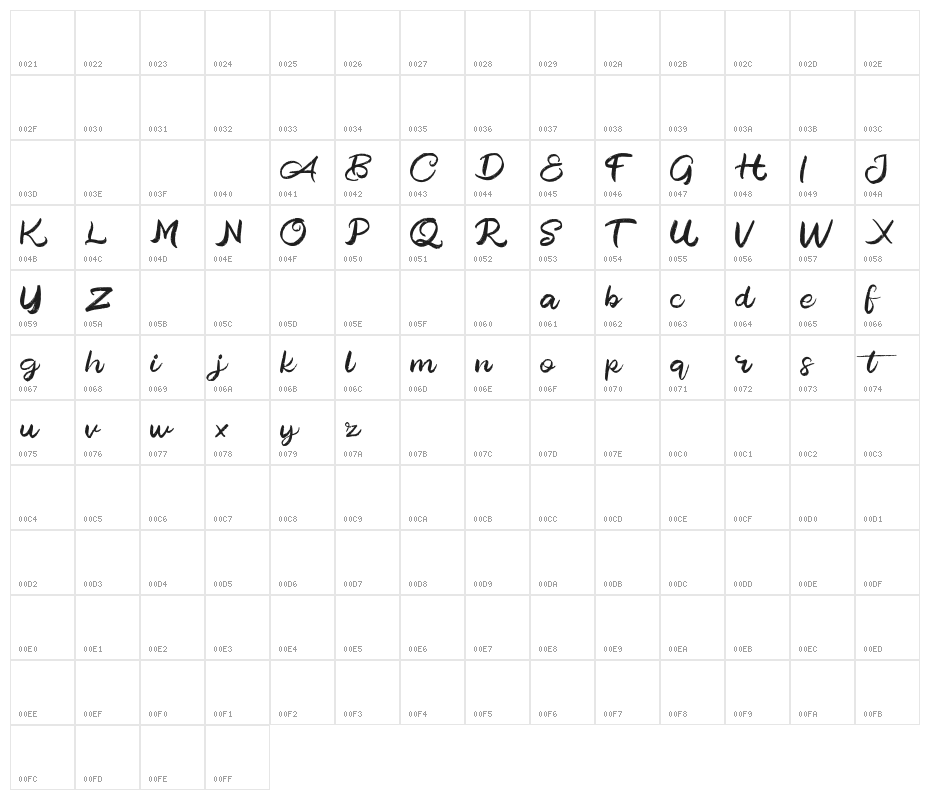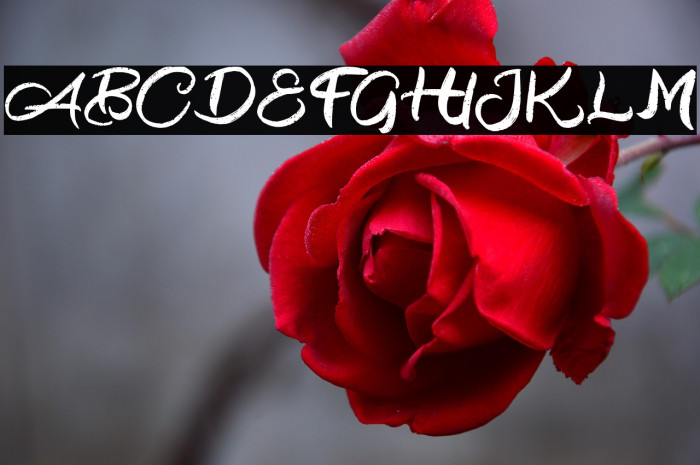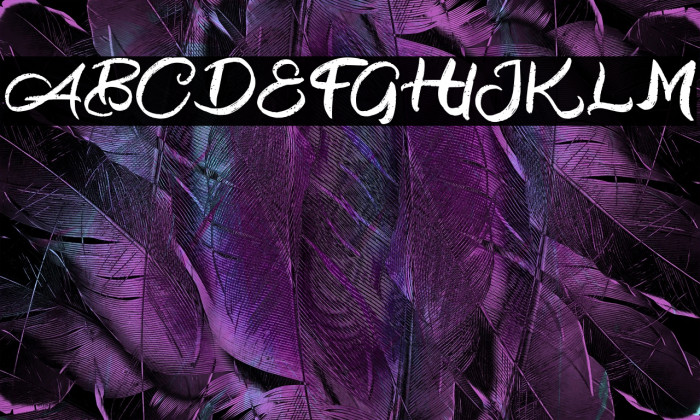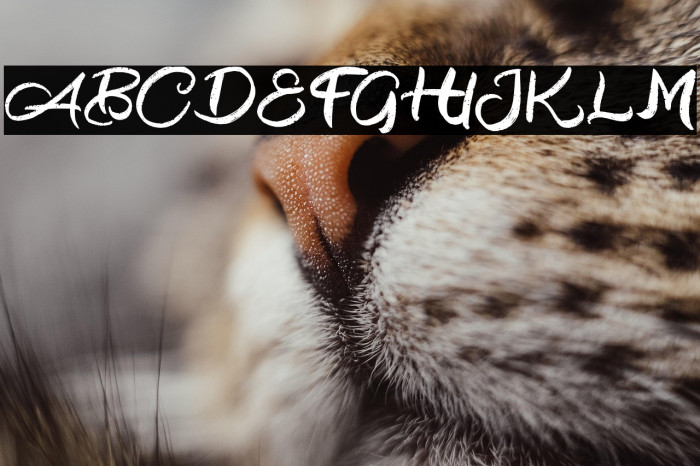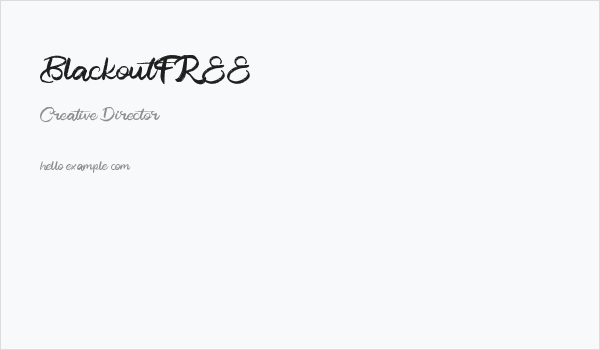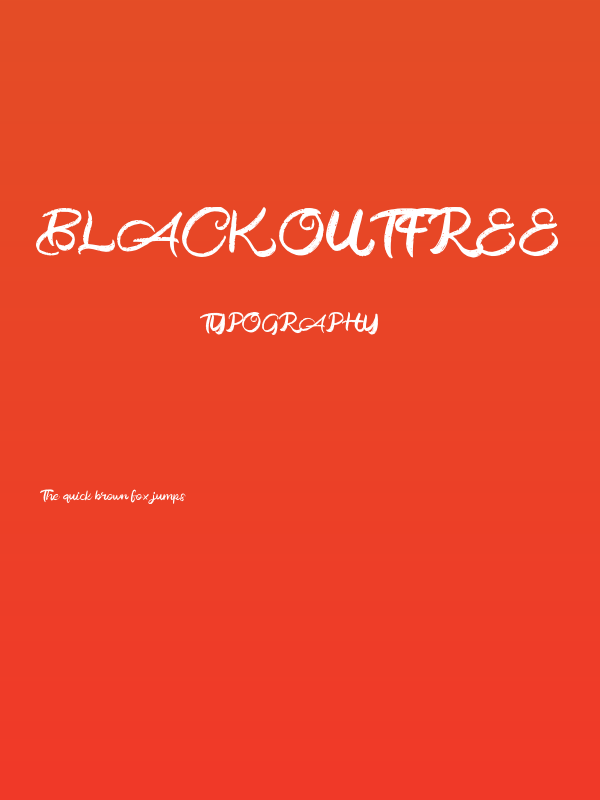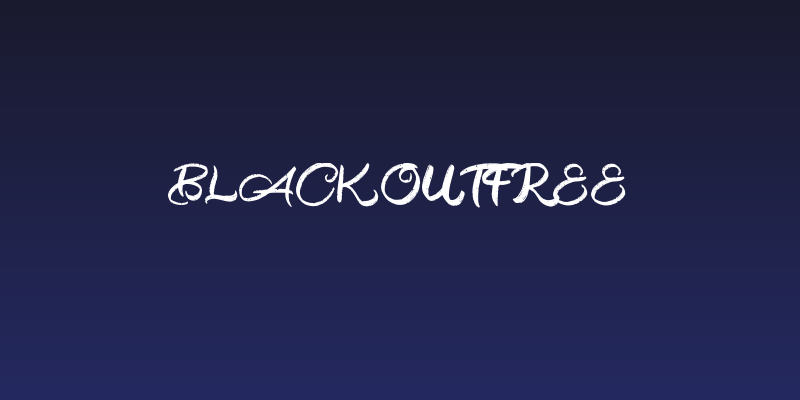
BlackoutFREE Font
BlackoutFREE Description
This font features a bold, expressive script style with a hand-painted appearance. The letters are characterized by their fluid, sweeping strokes and slightly rough edges, giving them a dynamic and artistic feel. The uppercase letters are tall and elegant, while the lowercase letters maintain a consistent flow, enhancing the handwritten aesthetic. The font's organic texture and lively movement make it stand out, offering a unique blend of creativity and sophistication. Its brush-like quality adds a personal touch, making it suitable for projects that require a human element or artistic flair.
| Overall Style | Artistic, Handwritten |
| Proposed Projects | Ideal for branding, invitations, posters, and any creative projects that benefit from a personal, artistic touch. |